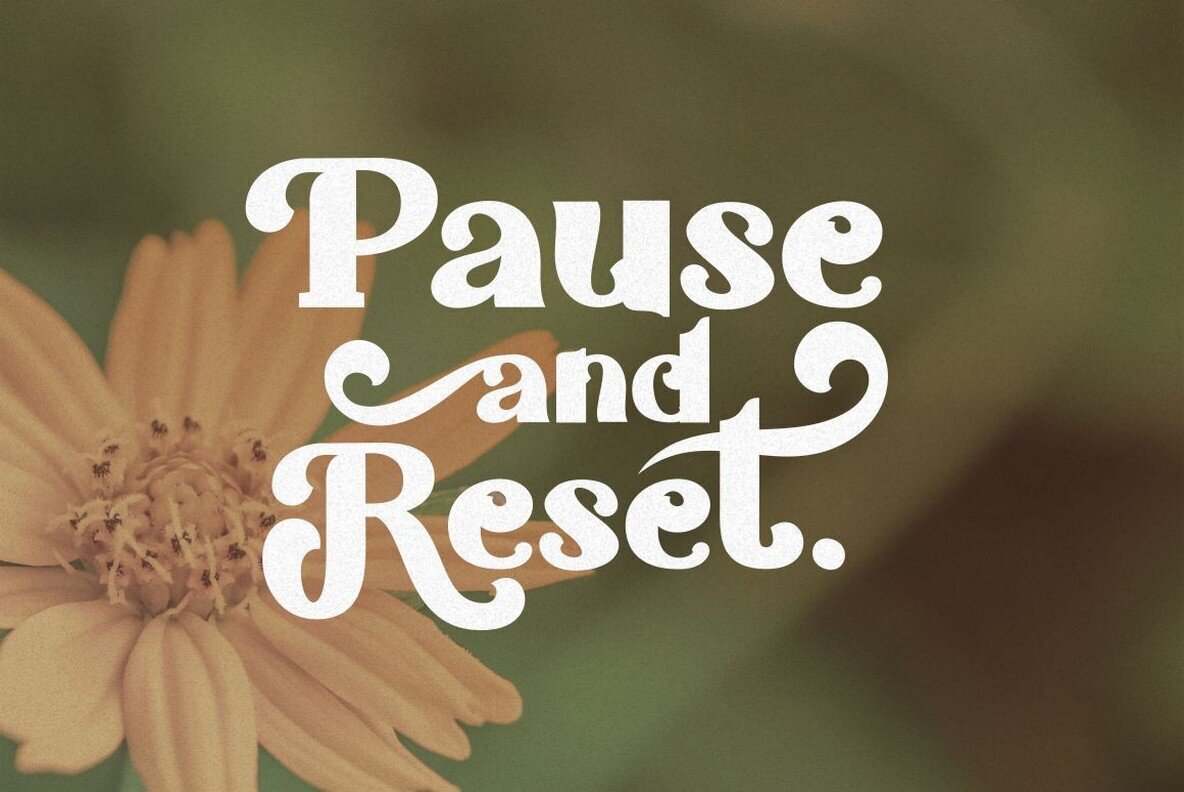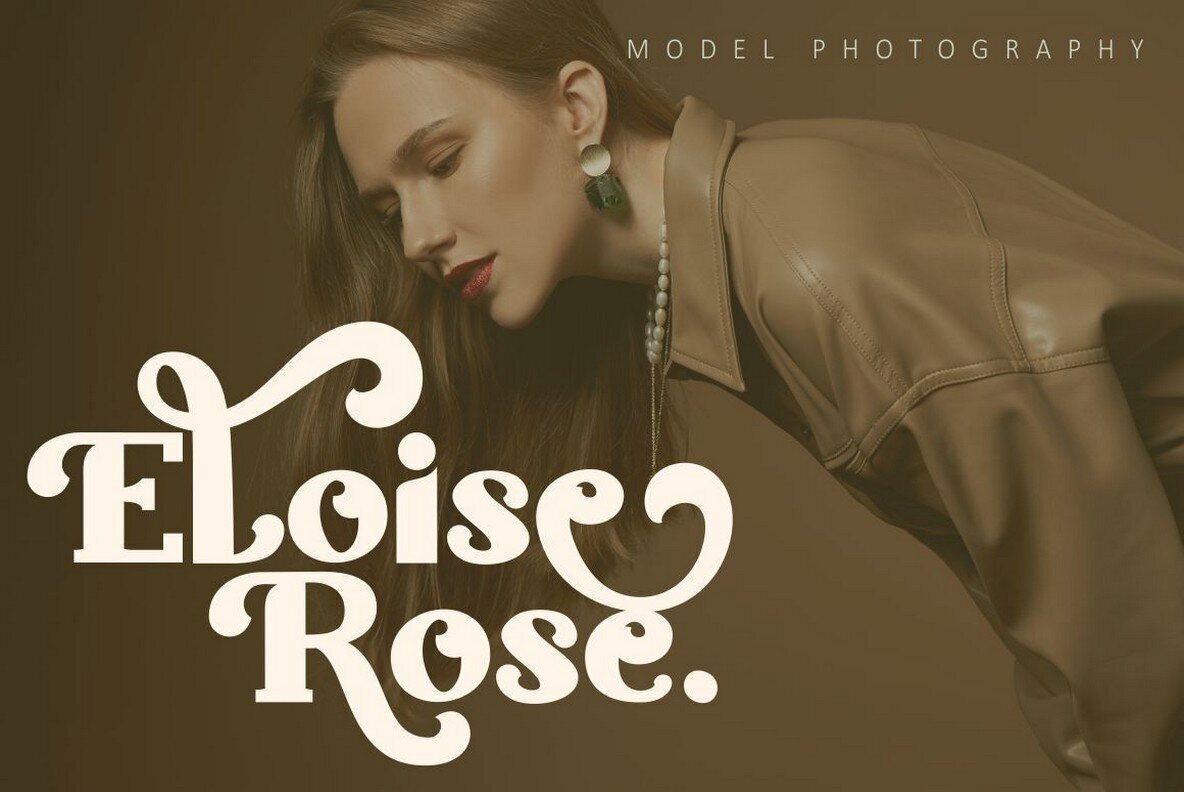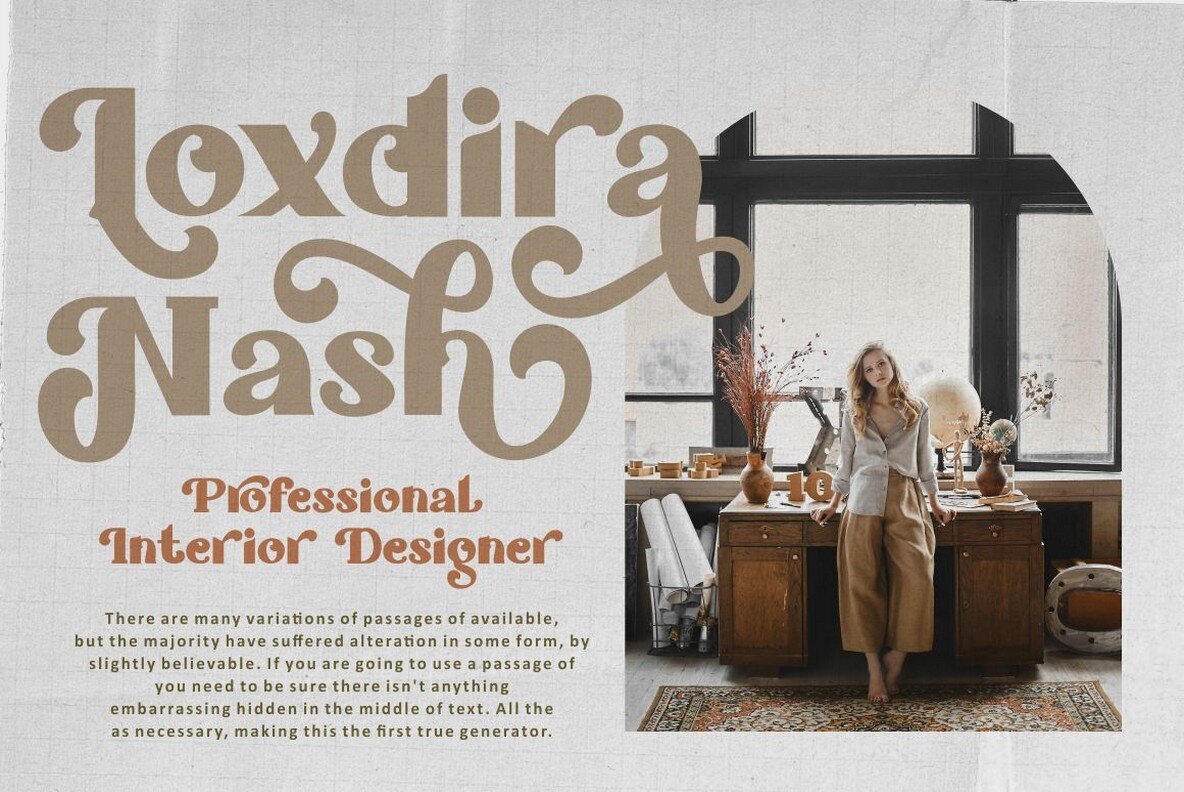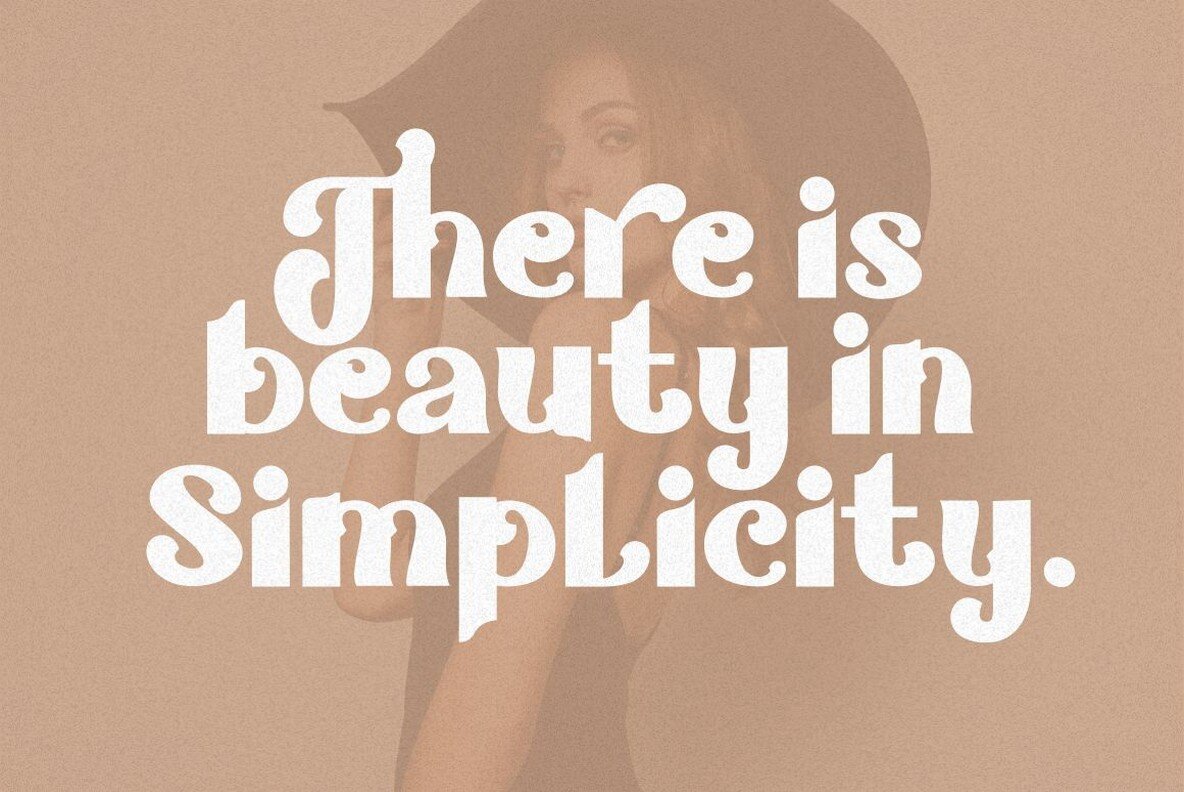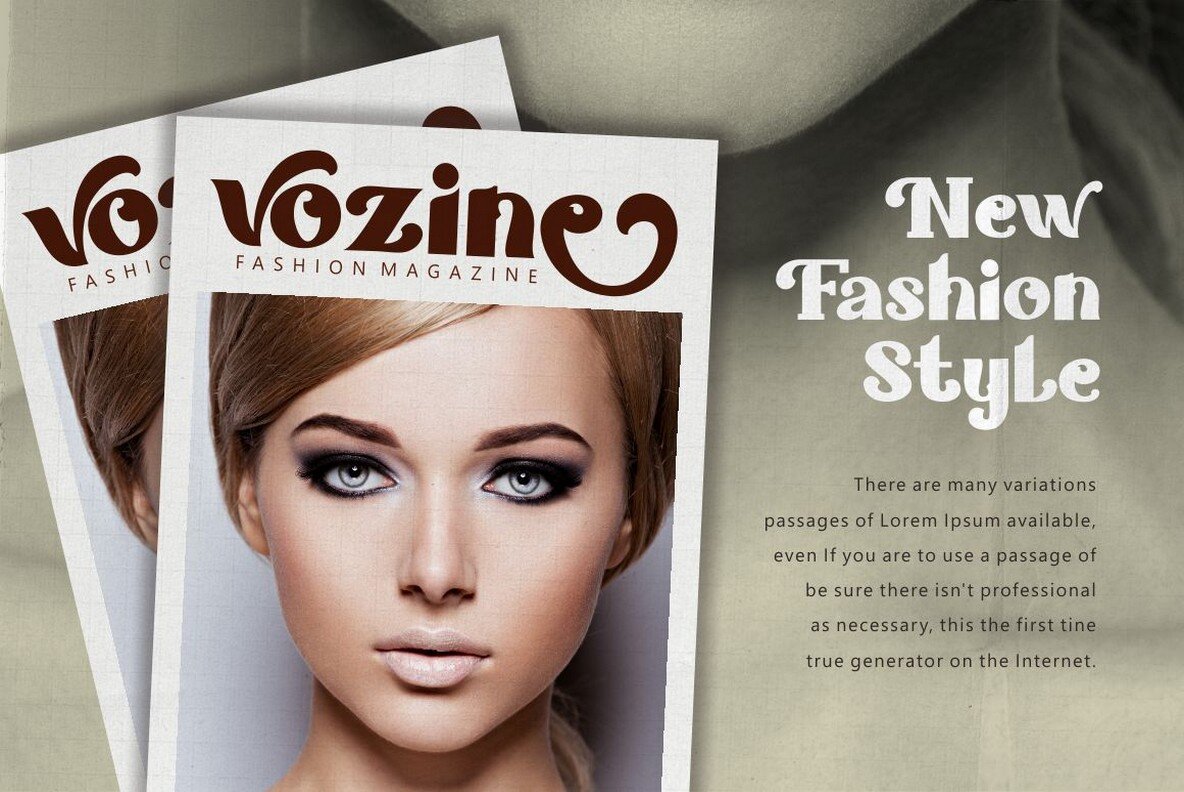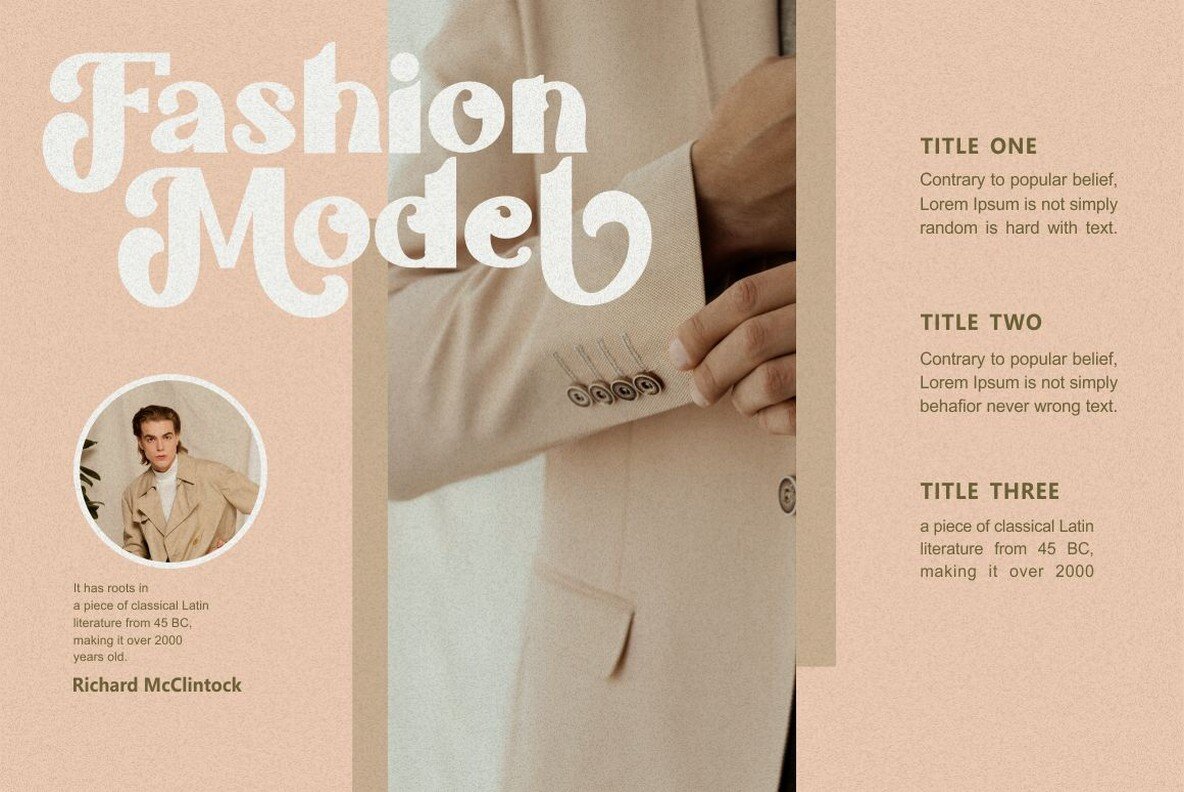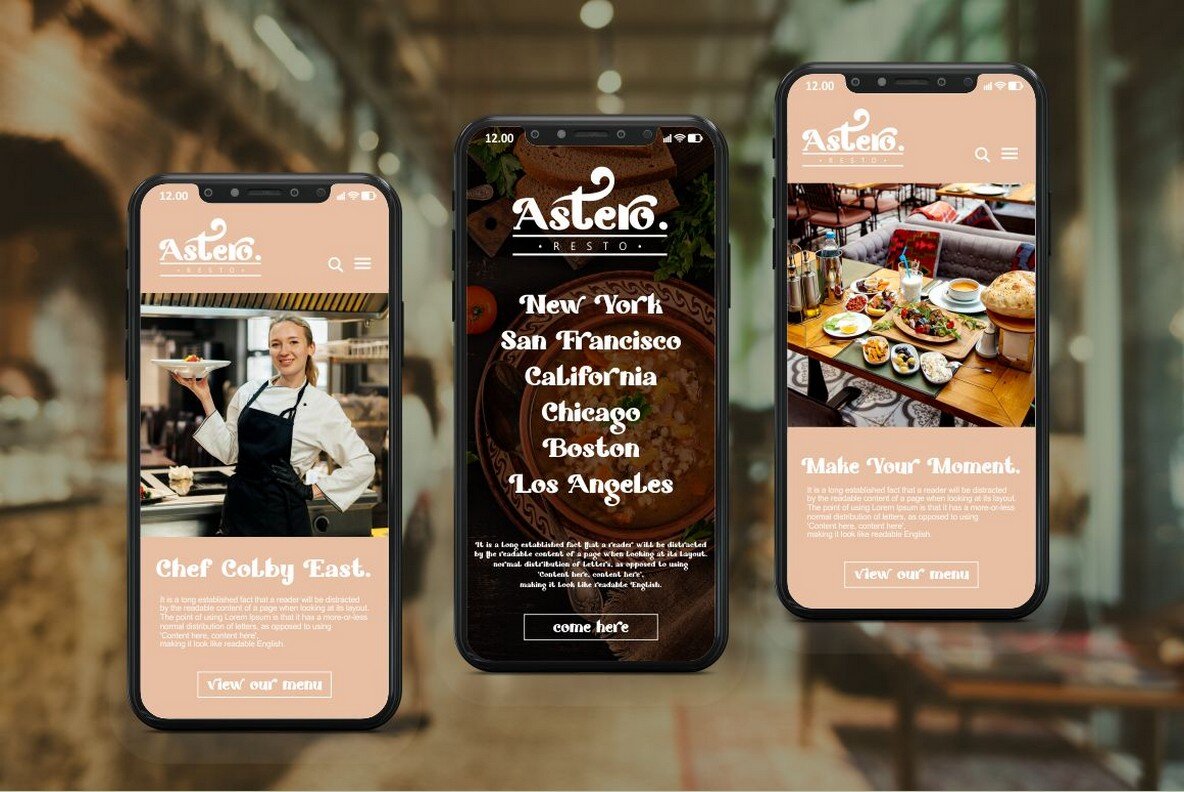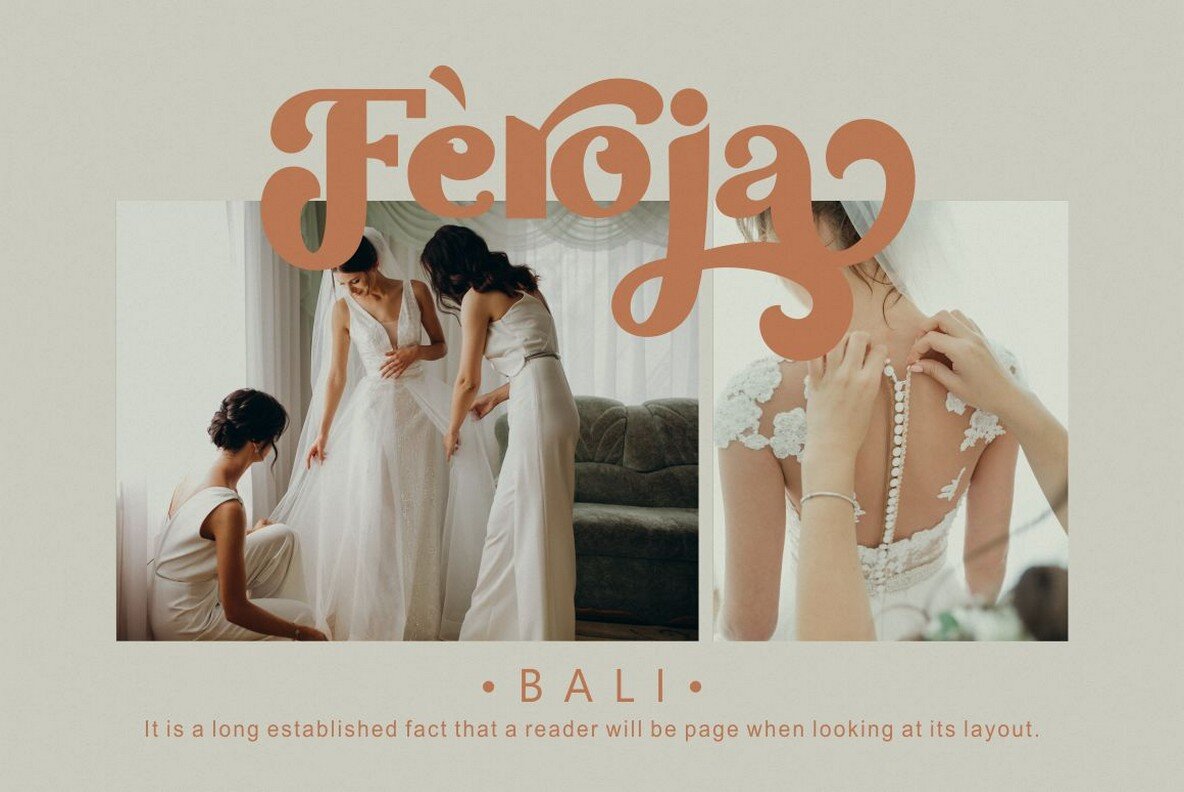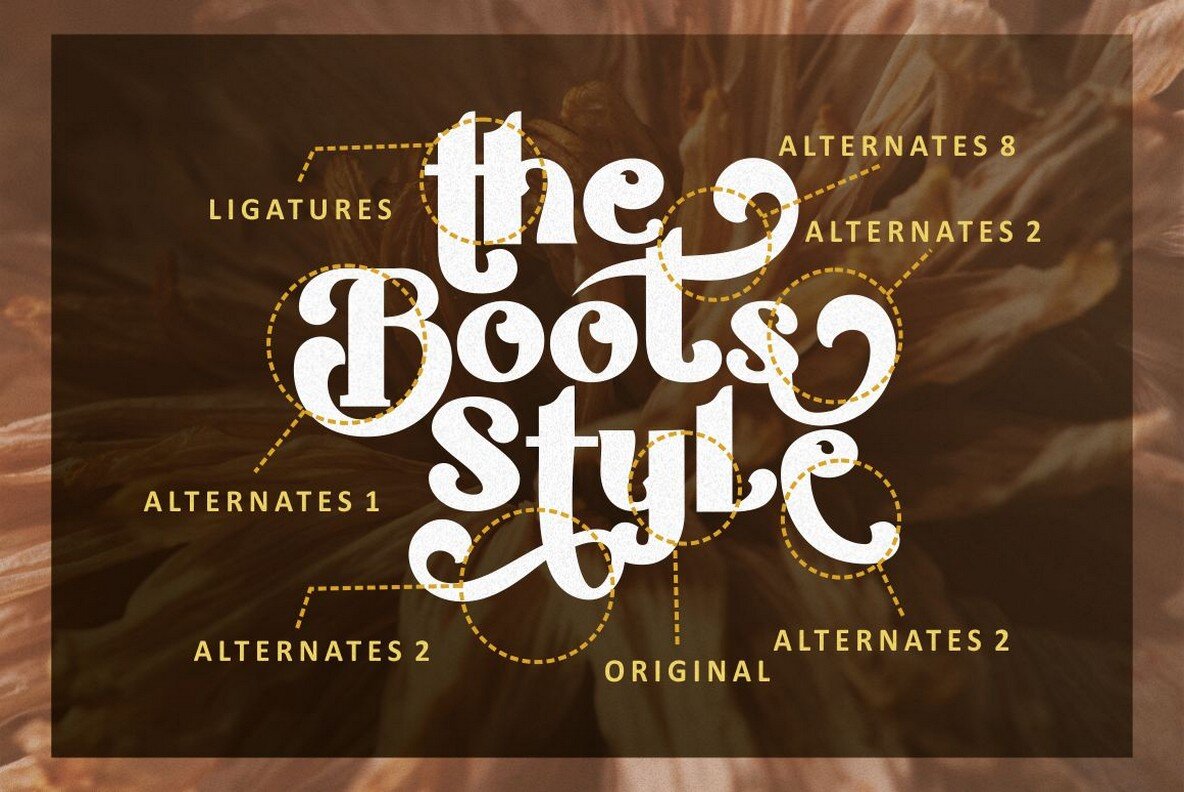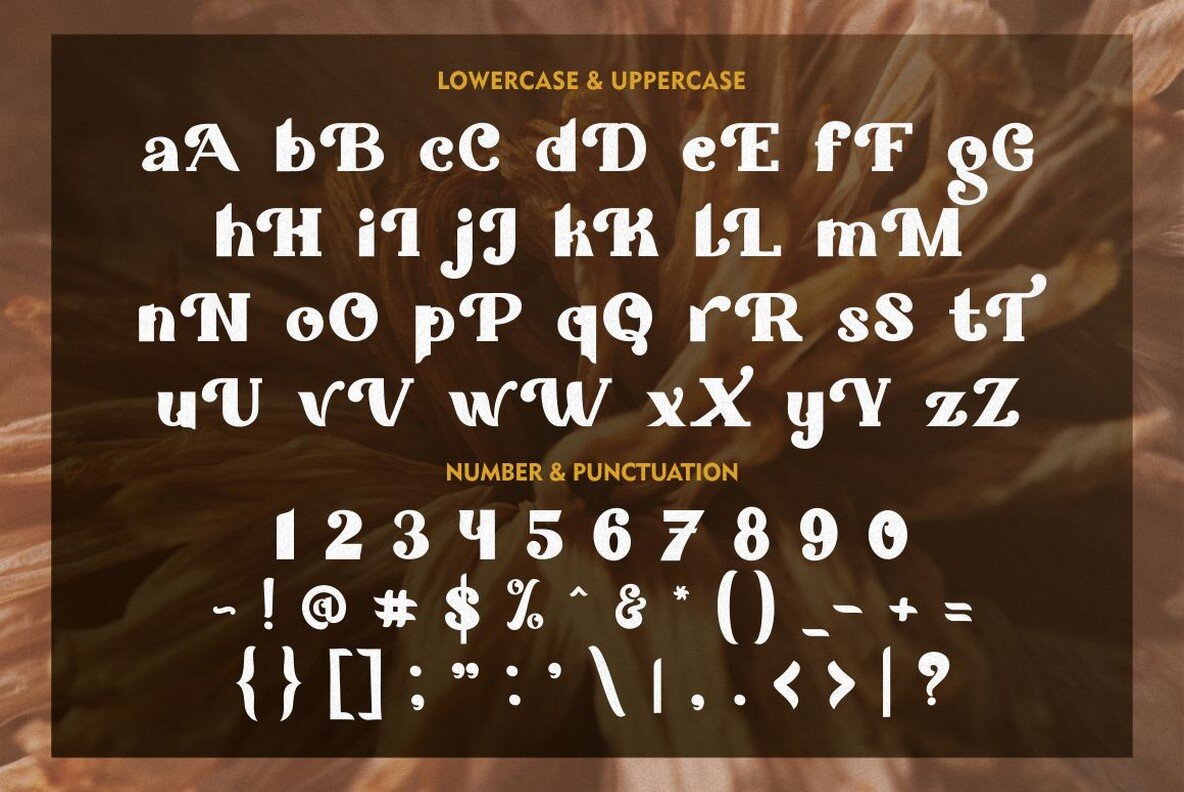
Ragwort Font
Ragwort
Ragwort offers a buoyant and contemporary vibe that enlivens any design project. Drawing inspiration from robust font styles, Ragwort's bold character shines with well-proportioned curves and artistic alternates, offering a surprising versatility. Whether seeking a distinct professional edge or a lively touch, Ragwort meets varied design needs. Designed for Open Type specialists, Ragwort thrives in programs like Adobe Illustrator, InDesign, Photoshop, Corel Draw, and beyond, making it a quintessential choice for creative professionals.Ragwort: An Energetic Display Sans Serif